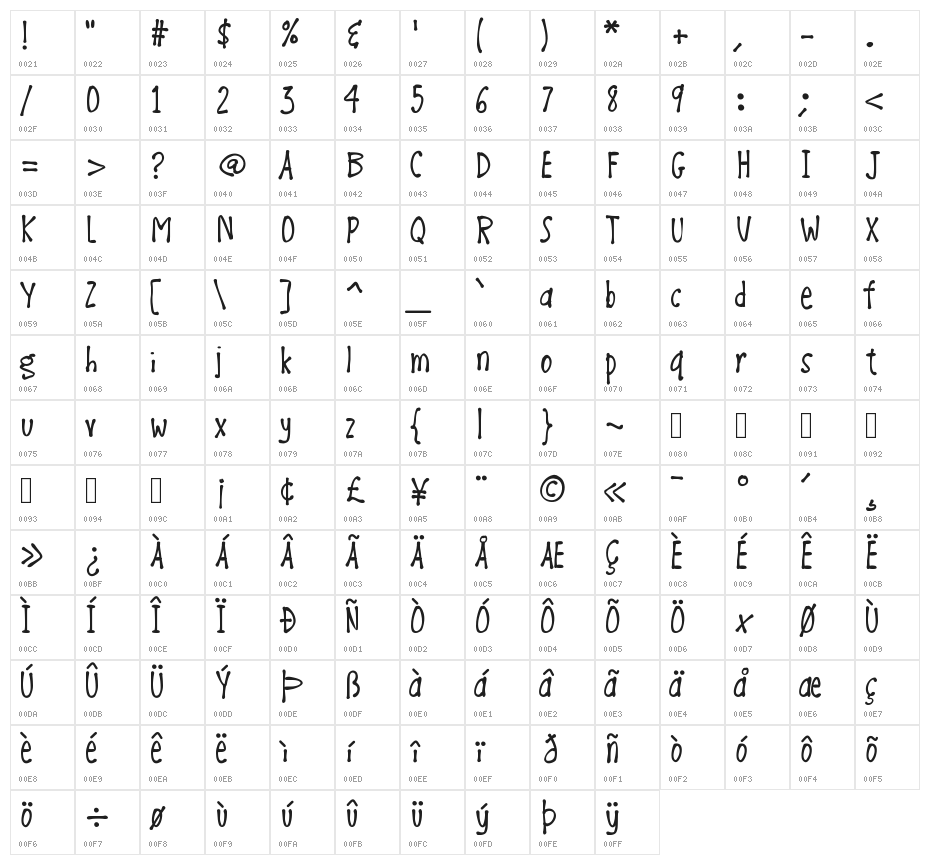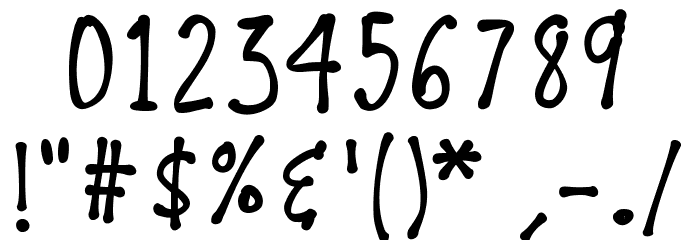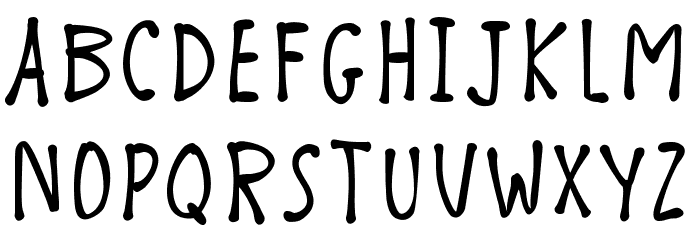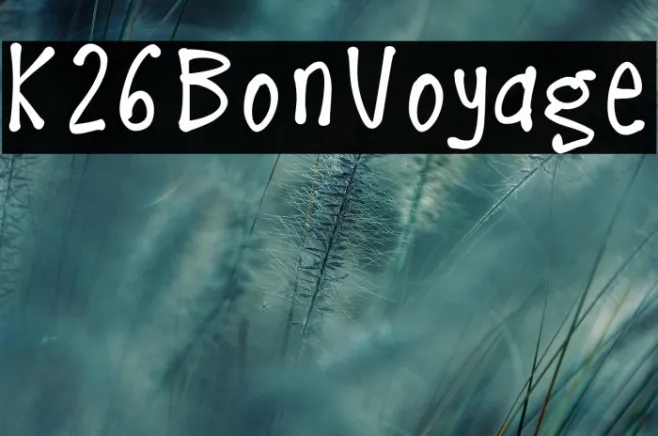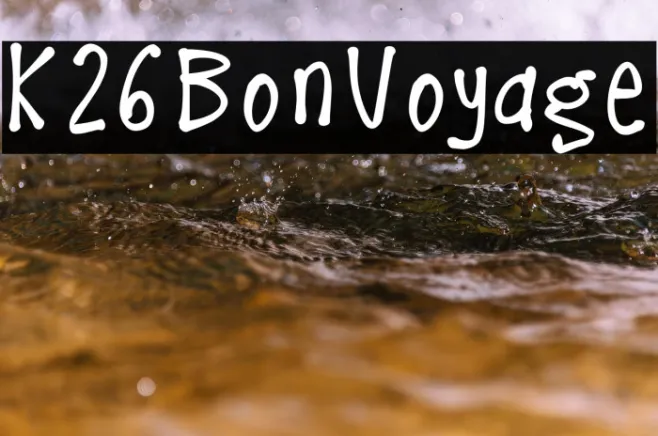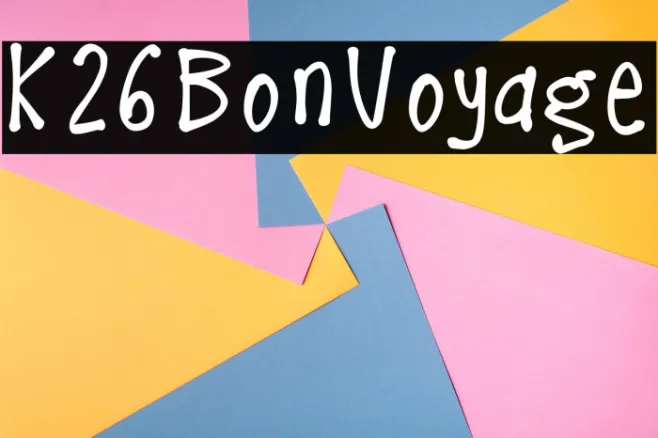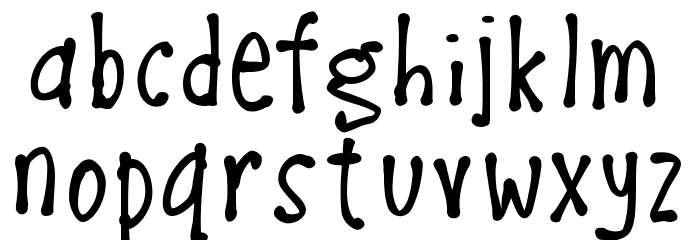
K26BonVoyage Font
K26BonVoyage Description
This font features a playful and informal handwritten style, characterized by its irregular, slightly wavy lines and casual appearance. The letters are unevenly sized, adding to the whimsical and friendly feel. The strokes are consistent in thickness, providing a uniform look despite the quirky design. The font includes a full set of uppercase and lowercase letters, numerals, and a variety of special characters, making it versatile for different uses. Its unique charm and personality make it suitable for projects that require a personal touch.
| Proposed Projects | Ideal for greeting cards, children's books, casual invitations, and playful branding. |